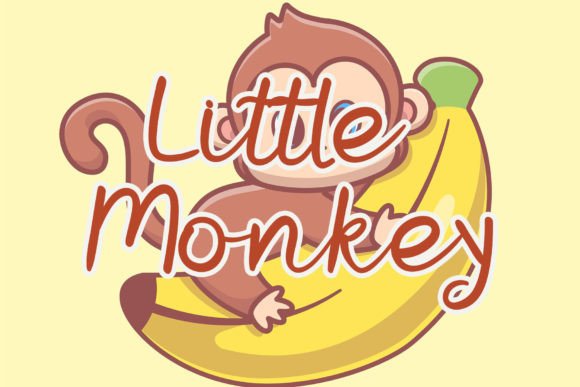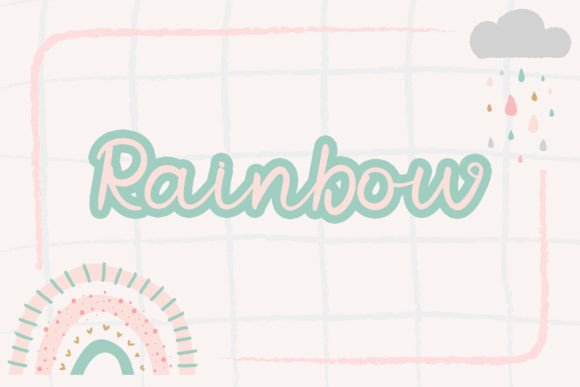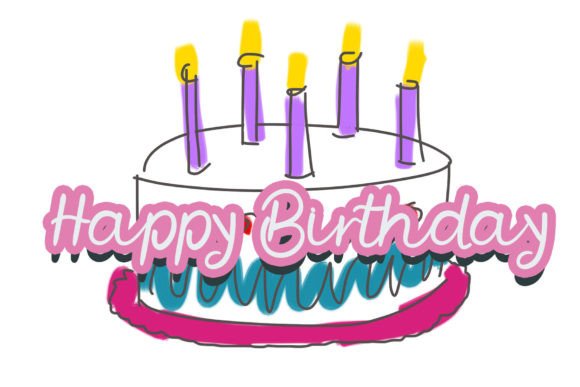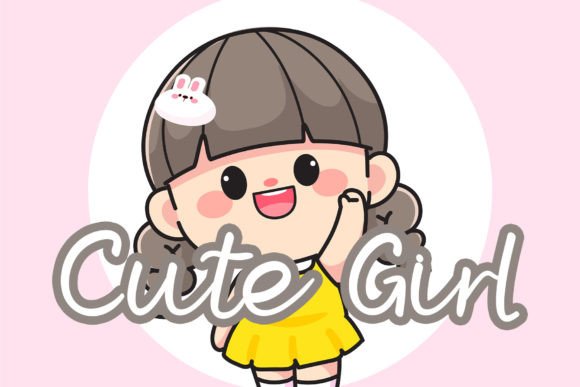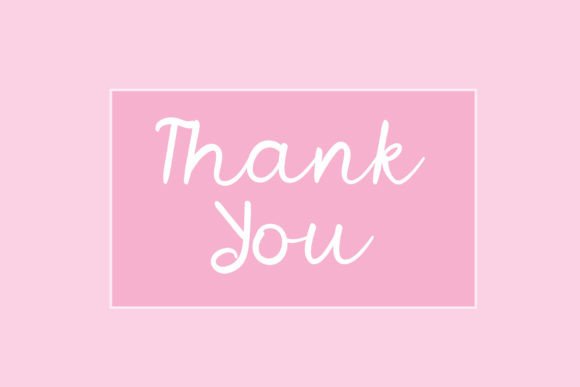
Baby Bunny Font: The Ultimate Choice for Designers and Crafters
Baby Bunny Font is a lovely and sweet handwritten script font that has captured the hearts of designers and crafters alike. This gentle font is perfect for adding a touch of joy and romance to a variety of design projects. In this article, we’ll dive into the world of Baby Bunny Font and explore its features, uses, and benefits.
What Makes Baby Bunny Font So Special?
Baby Bunny Font is a unique and charming handwritten script font that exudes warmth and sweetness. Its gentle curves and flowing lines make it perfect for creating beautiful and eye-catching designs. Whether you’re working on a logo, invitation, or social media post, Baby Bunny Font is sure to add a touch of whimsy and delight.
Features of Baby Bunny Font
• Handwritten Script Font: Baby Bunny Font is a handwritten script font that mimics the natural flow of handwriting. Its unique and organic feel makes it perfect for creating personal and engaging designs.
• Lovely and Sweet: This font is designed to evoke feelings of joy and romance. Its sweet and charming appearance makes it perfect for designs that require a touch of whimsy and playfulness.
• Versatile: Baby Bunny Font is a versatile font that can be used on a variety of design projects, from logos and invitations to social media posts and crafts.
• Easily Readable: Despite its handwritten nature, Baby Bunny Font is easily readable, making it perfect for designs that require a clear and concise message.
Uses of Baby Bunny Font
Baby Bunny Font is a versatile font that can be used on a wide range of design projects, including:
• Logos and Branding: Use Baby Bunny Font to create a unique and memorable logo that showcases your brand’s personality.
• Invitations and Stationery: Add a touch of whimsy and romance to your invitations and stationery with Baby Bunny Font.
• Social Media Posts: Use Baby Bunny Font to create eye-catching social media posts that stand out from the crowd.
• Crafts and DIY Projects: Baby Bunny Font is perfect for crafters and DIY enthusiasts who want to add a personal touch to their projects.
Benefits of Using Baby Bunny Font
Using Baby Bunny Font can bring a range of benefits to your design projects, including:
• Unique and Memorable Designs: Baby Bunny Font helps you create unique and memorable designs that stand out from the crowd.
• Emotional Connection: This font’s sweet and charming appearance helps create an emotional connection with your audience.
• Time-Saving: With Baby Bunny Font, you can create beautiful designs quickly and easily, saving you time and effort.
• Professional-Looking Results: Despite its handwritten nature, Baby Bunny Font produces professional-looking results that are perfect for both personal and commercial projects.
Tips for Using Baby Bunny Font
To get the most out of Baby Bunny Font, here are some tips to keep in mind:
• Use it Sparingly: While Baby Bunny Font is beautiful, it’s best used sparingly to avoid overwhelming your design.
• Pair it with Other Fonts: Experiment with pairing Baby Bunny Font with other fonts to create a unique and visually appealing design.
• Adjust the Size and Color: Play around with different sizes and colors to find the perfect combination for your design.
Baby Bunny Font is a lovely and sweet handwritten script font that’s perfect for designers and crafters who want to add a touch of joy and romance to their projects. With its unique features, versatility, and benefits, it’s no wonder that Baby Bunny Font has become a popular choice among designers and crafters. Whether you’re working on a logo, invitation, or social media post, Baby Bunny Font is sure to bring a smile to your audience’s face.